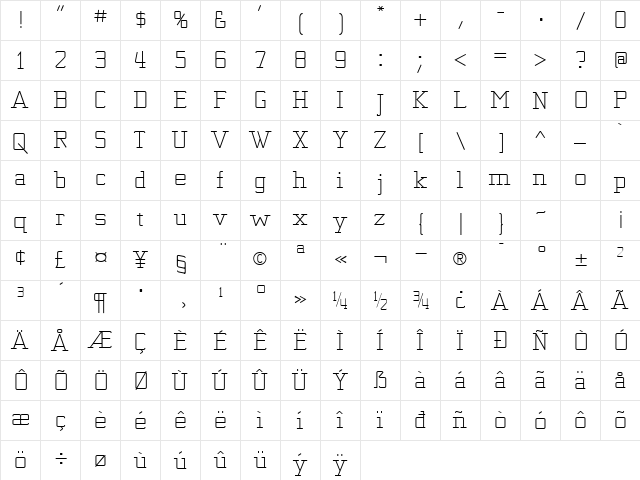
KwersityWider Regular
Design Context for KwersityWider Typeface
KwersityWider is a composed and adaptable typeface that performs quietly and consistently across a wide range of design contexts.